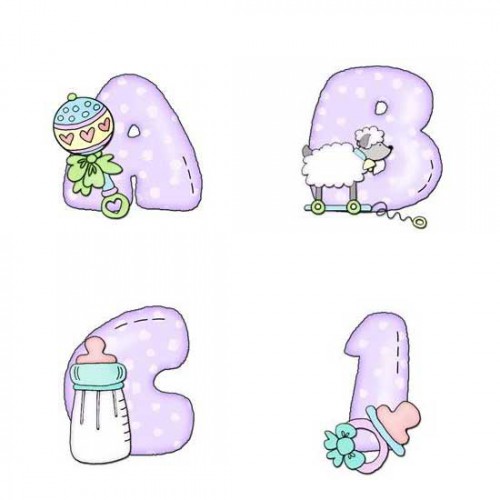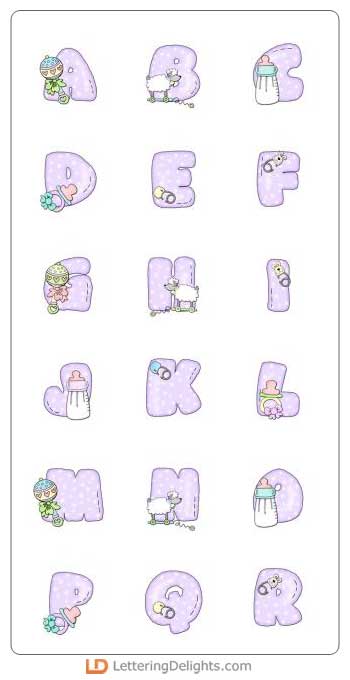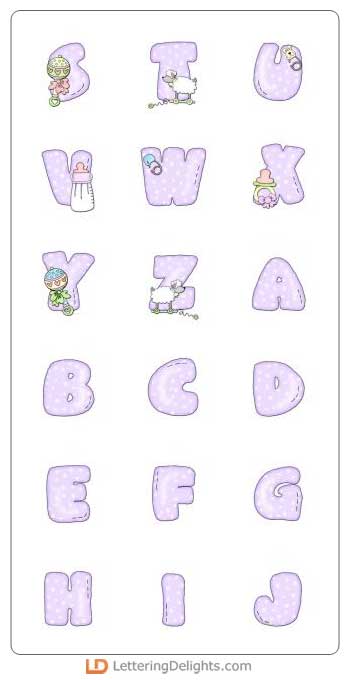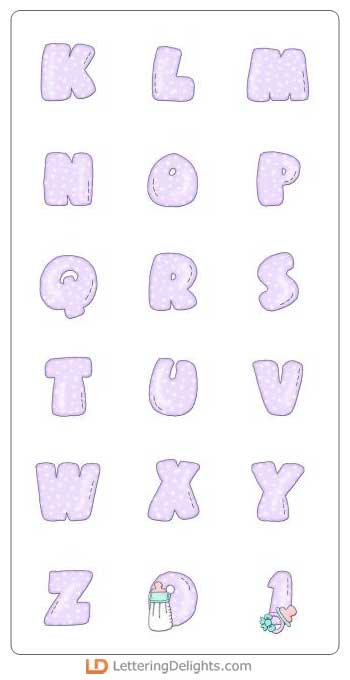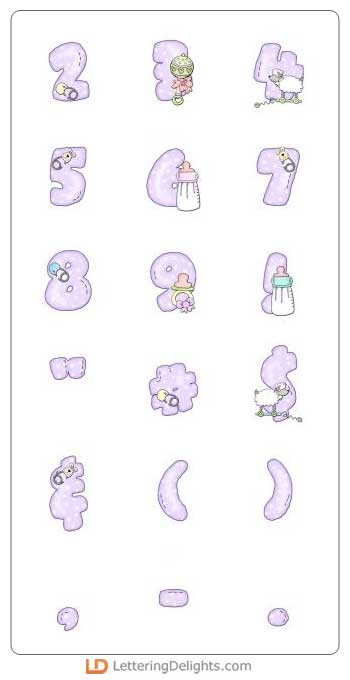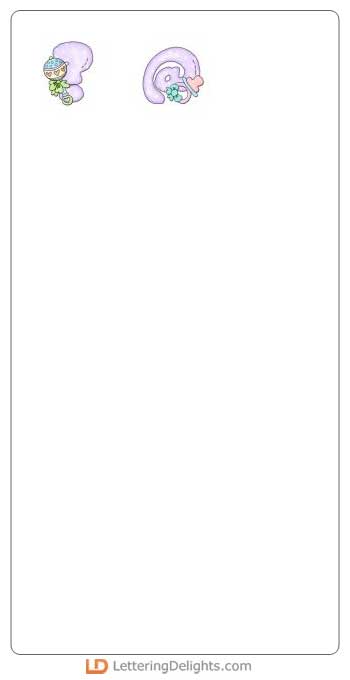
Nothing is too good for our little baby! You'll get extraordinary baby scrapbook pages, journaling, titles, and more in no time with this alphabet. Just add photos of your little one. Finish it up with the matching For Baby journaling set.